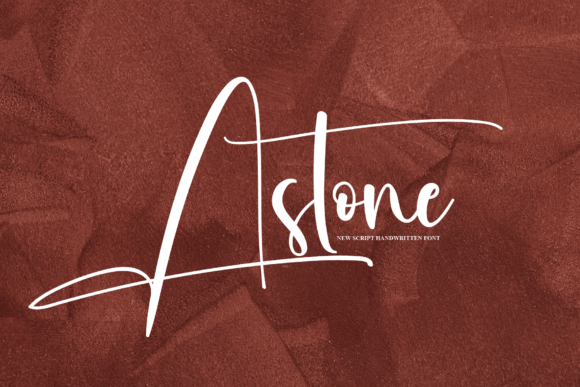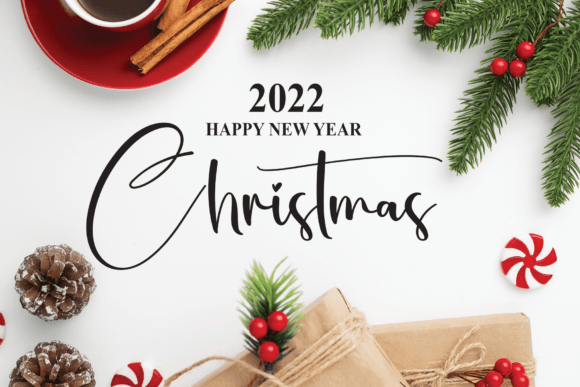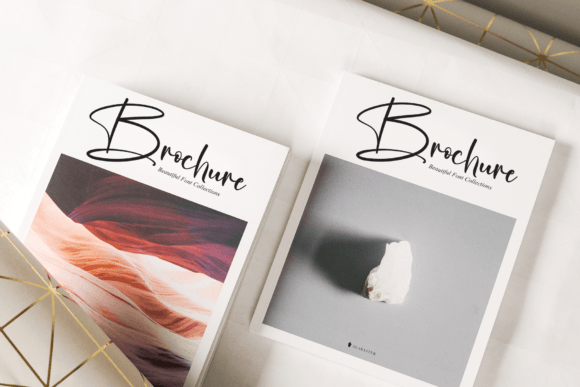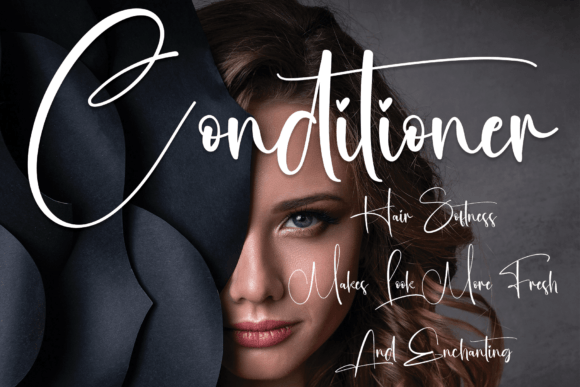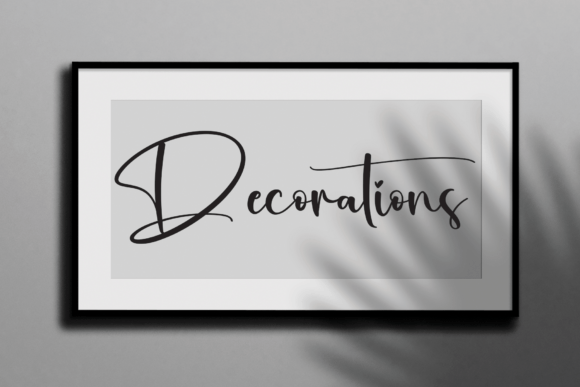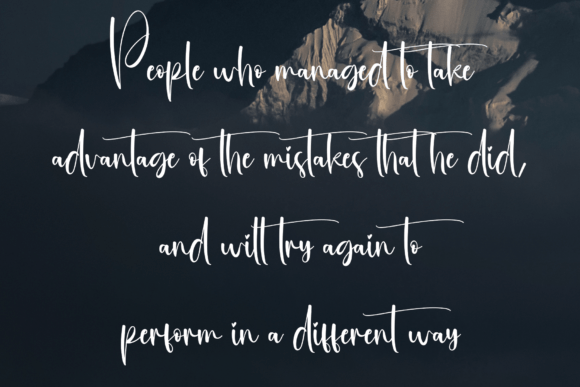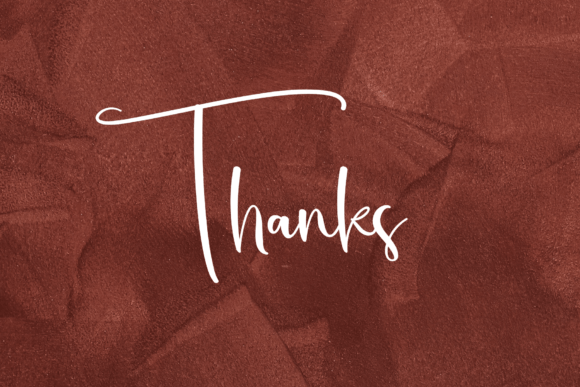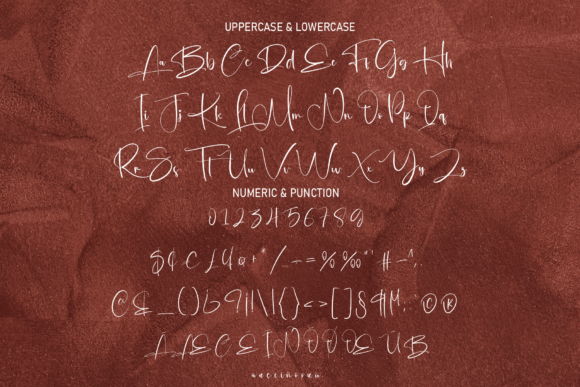
Astone Font
About Astone Font
Astone unveils itself as a delicate and well-rounded handwritten font, tailor-made for crafty projects that demand authentic typography. Whether you’re working on wedding invitations, birthday cards, personal branding, elegant logos, or any creative endeavor, using Astone ensures that your designs will stand out from the competition with a touch of genuine charm.
The delicate strokes and well-rounded features of Astone make it a versatile choice for a range of projects, particularly those that require an authentic and heartfelt aesthetic. Its handwritten nature adds a personal touch, making it perfect for conveying warmth and sincerity in your designs.
Wedding invitations are elevated by the graceful allure of Astone, infusing the celebration with a sense of romance and sophistication. In birthday cards, the font adds a touch of charm and uniqueness, making your greetings truly special. Astone becomes a visual signature in personal branding, elegant logos, and more, setting your designs apart with its distinctive and well-crafted style.
The versatility of Astone shines through, ensuring that it adapts seamlessly to various design contexts. Its ability to convey authenticity and charm makes it an invaluable tool for designers and creators seeking to make a lasting impression in a competitive landscape.
In conclusion, let Astone be the elegant companion for your crafty projects, turning them into standout creations. Whether you’re a seasoned designer or an enthusiast embarking on a creative journey, Astone’s delicate and well-rounded design ensures that your work exudes authenticity and captures the attention it deserves. Elevate your designs with the genuine charm of Astone, setting them apart in the world of craft and creativity.